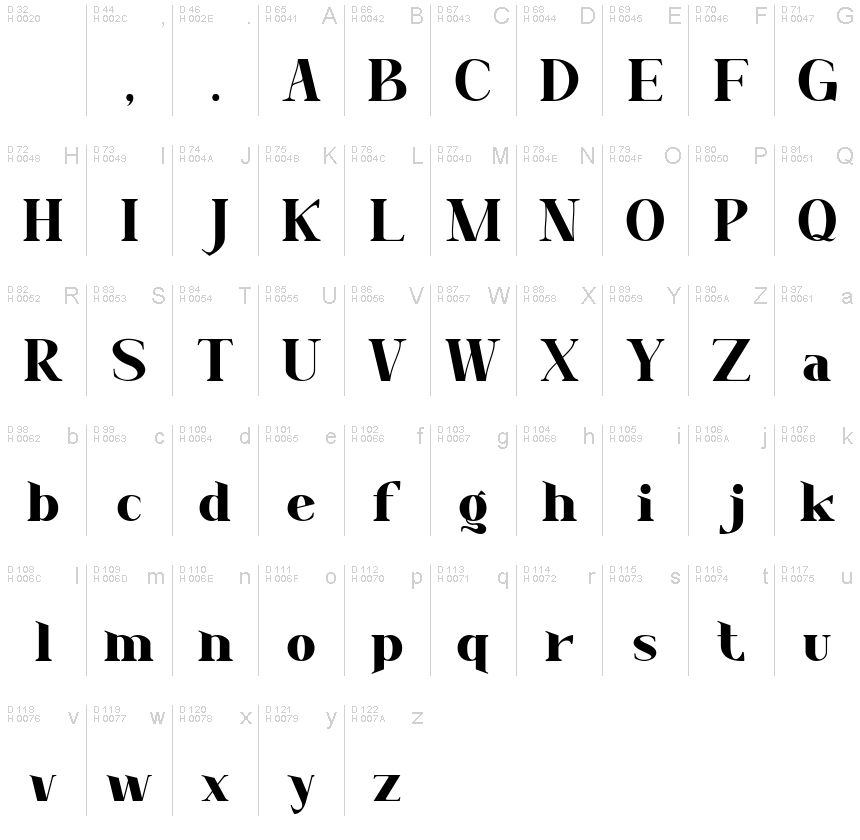
Donaz Regular
Donaz, a bold serif font crafted by designer Achmad Yani, exudes a commanding presence with its striking letterforms. Donaz's sturdy, authoritative lines evoke a sense of strength and stability, making it an impactful choice for headlines, branding, and editorial design. The font's generous x-height and well-defined serifs lend it a timeless, classic aesthetic that can elevate a wide range of projects.
Donaz's versatility extends beyond its visual appeal, making it a versatile option for various design applications. Its bold, legible nature ensures high visibility, making it an excellent selection for product packaging, signage, and other high-impact contexts. Additionally, Donaz's formal, sophisticated style lends itself well to prestigious publications, corporate communications, and other professional settings where a polished, authoritative tone is desired.